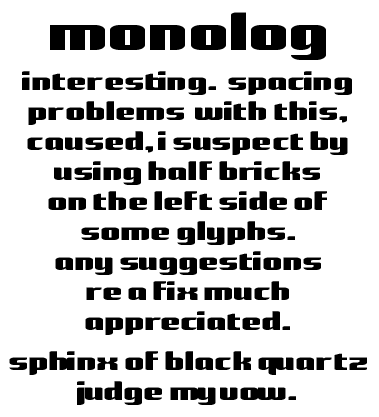
• a monologomous problem
The sphinx of back quartz text has not been space-adjusted, which shows the problem.
Has anybody else hit this problem, and perhaps discovered a way round it? Or do I have to find all the offending glyphs and add two grid spaces to the startpoint rather than one? Hope not.
Soooo nice.
I seems to me that all your scores of experimental fonts have lead you to a very distinct and clean style. You have been hitting it out of the park (or equal rugby terminology) consistently of late. I hope you are pleased with yourself. I certainly am. :)
Not that this font is perfect as it is, but the rounded right legs of h, m and n makes me want to pull their leg...literally. I guess what I am wondering is what would happen if you dropped down the rounded bit a brick or two?
It's so good to see the progress we have all made. I love this place.
That was supposed to be 'Not that this font is not perfect as it is'. Yikes! Such a fatal mistake. Sorry.
Yes, I hadn't seen it. It's the difference between the half-round brick and the rounded-square brick. I should be using the half-rounds only on the oval forms.
It's interesting to see, over the months, how I've absorbed a viable approach. In my case it's very messy; I don't think, I just do. Which has an upside and a downside. So yes, I'm improving over time but I'm still caught out by fairly obvious "wrong" choices.
The upside is that "wrong" choices sometimes have surprisingly pleasing outcomes! I shall fix it when I get back to the upper case.
Hi intaglio,
your output is astonishing.
this one is to me like a "script"-version of chicago ... and it's very well done.
the spacing problem:
it's a "lack" on funstruct.
you can handle the spacing by moving the start-point of a glyph on the left side ... but the spacing on the right side is always (and i mean: always) the same: it's one brick wide.
on a typewriter the space for one character is(/was) equal to all the other characters, what i mean is: you can place i.g. the 'i' on the middle of the space so the spacing on the right and the left is equal (and more than one brick wide)
In fontstruct there is just one case to manage it like this: keep the left and the right spacing one brick wide.
moving the glyphs to the left or right of the left-base-line in varying distances collides withe the monospaced setting on the right side.
some of the typograph-masters who casted their fonts in lead made characters in different widths with balanced spaces on the left and on the right of one glyph and they handled (sic!) the spacing by correcting the kerning by hand.
the Stamp Garamond dealt with the limitations of (book-)printing ...
but they couldn't do kerning pairs (like AV) in the way we can do it now with digital systems ... except they've made a "Glyph" that replaced the combination of A and V (sort of ligature)
but though the stamp garamond worked perfect in the setting of printing with lead-letters.
here's another story:
– Mr. Gutenberg made multiple versions of the same characters in varying width for printing his famous bible (I read about 200 different for the 26 characters of the alphabet) to achieve a perfect spacing experience ... he combined a condensed m with a normal and a wide m in the same text!!!
in fonstruct now we have a different spacing problem we've to cope with.
i think if you want to achieve a perfect spacing you've to design your fonts in a way that deals with the spacing-limitations of fontstruct.
you can draw perfect glyphs but that does not mean, that you've got a useful font in the spacing way. to me a font is like a context to keep the single forms of each glyph together in a balanced way (in all combinations!)
correct me if I wrote something wrong,
than i'll write another matter ;)
Comment by guentersen 10th november 2008
Of course, I should have thought of the right side of the glyph. I started out the design with all glyphs starting at the zero point. It was fine until about half way through the lower case. So then I shifted everything one brickspace to the right. But this wouldn't help with the allocated space after the glyph, would it.
I'm pressing on with this half-solution because I'd rather have a bit of air in it anyway, and just put up with the crashes between certain pairs.
It's not as if it's the sort of face you'd want to be using as text setting anyway.
Comment by intaglio 10th november 2008
@guentersen: What is this "typewriter" device you speak of? (j/k)
@intaglio: I agree with thalamic on the refinement of your style. Getting better and better.
I'm undecided whether I should open up the A,B,D,H,K,O,P,Q,R,U etc(like the X). One the one hand it will make them more legible but on the other, the M and W will then be noticibly narrower if I don't follow suit. Sleep on it.